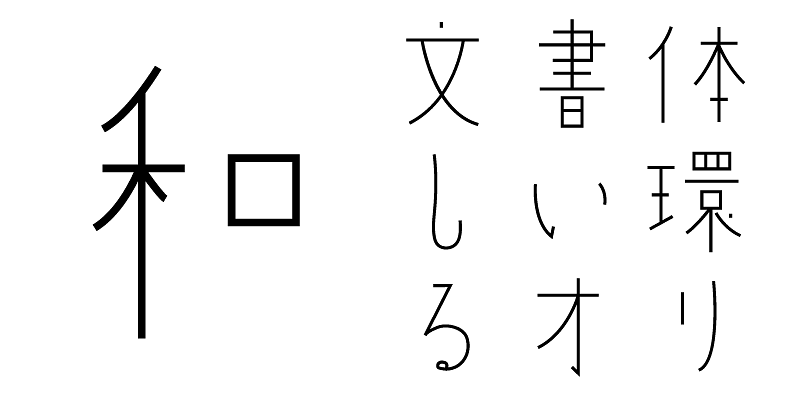
AB Anzu R Font Free Download
AB Anzu R Font Free Download is a clean, modern sans-serif typeface that strikes a perfect balance between elegance and readability. Its refined letterforms and slightly rounded edges give it a friendly yet professional aesthetic, making it ideal for branding, editorial design, websites, and projects that require clarity with a subtle touch of personality.
The R variant offers a versatile weight, providing flexibility for both headings and body text, while maintaining legibility across digital and print formats. AB Anzu R supports both Latin and Japanese scripts, making it suitable for bilingual or international design projects.